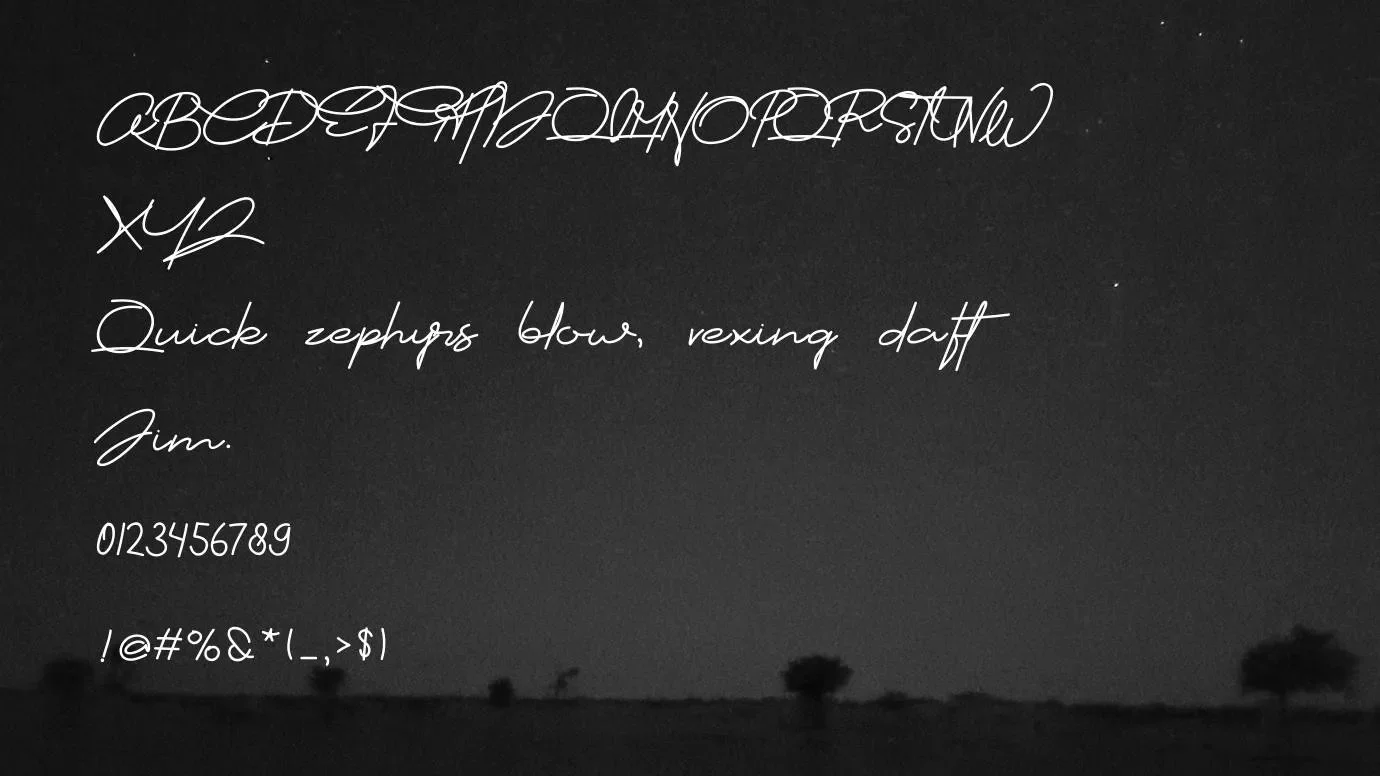
Here is another Ultra-modern typeface that is named Cartier font. It is a very gorgeous typeface belonging to the calligraphy typeface family. Carl Dail is the main designer of this typeface. He has been released in 1967 by Graphix Line Studio. It comprises one regular weight but has a complete set of 278 characters including all case letters, general punctuations, numbers, symbols, updated icons, and many special characters, which will be a complete font for your design and text design projects.
Its single weight has many stylistic alternatives, full language supports including Latin, Cyrillic characters, Ligatures, and glims that can use for printing projects, logos, magazine covers, posters, and website templates. Furthermore, it provides more than 250 unique glyphs with 1000 units per em along with OpenType and TrueType features that will add a natural touch to your texture contents.
Reason to Use Cartier Font
It has the coolest letterforms which would be suitable for eye-catching designs for example logos designs, book covers, eBook covers, website templates, greeting and wedding cards, branding projects, fashion related designs, brochures, banners, theme designs, app development, video games, social media posts, Powerpoint presentations, emblems, catalogs, and much more.
This font is also very suitable for any size of text and especially good for big headlines and titles. It is also better for short or long paragraphs, quotes, Hotel/Shop names, Product titling, Magazines and Newspaper headings, resumes, letterheads, articles, post descriptions, office tasks, and many related things.
What font is used for Cartier?
The lettering used for the logo of Cartier is a very gorgeous handwritten oblique typeface called Cartier CG. It has sophisticated handwritten letters.
What font is Cartier?
This is the coolest typeface in the font market that comes with handcrafted calligraphy letterings. The designer of this typeface is Carl Dail.
What font is close to the Cartier?
You can get many similar fonts to this typeface like Fredoka Font, Vesper Devanagari Libre Font, VI Anh Dao Hoa Font, and much more but Shelley Script Regular and Questa font are the closest fonts to this typeface.